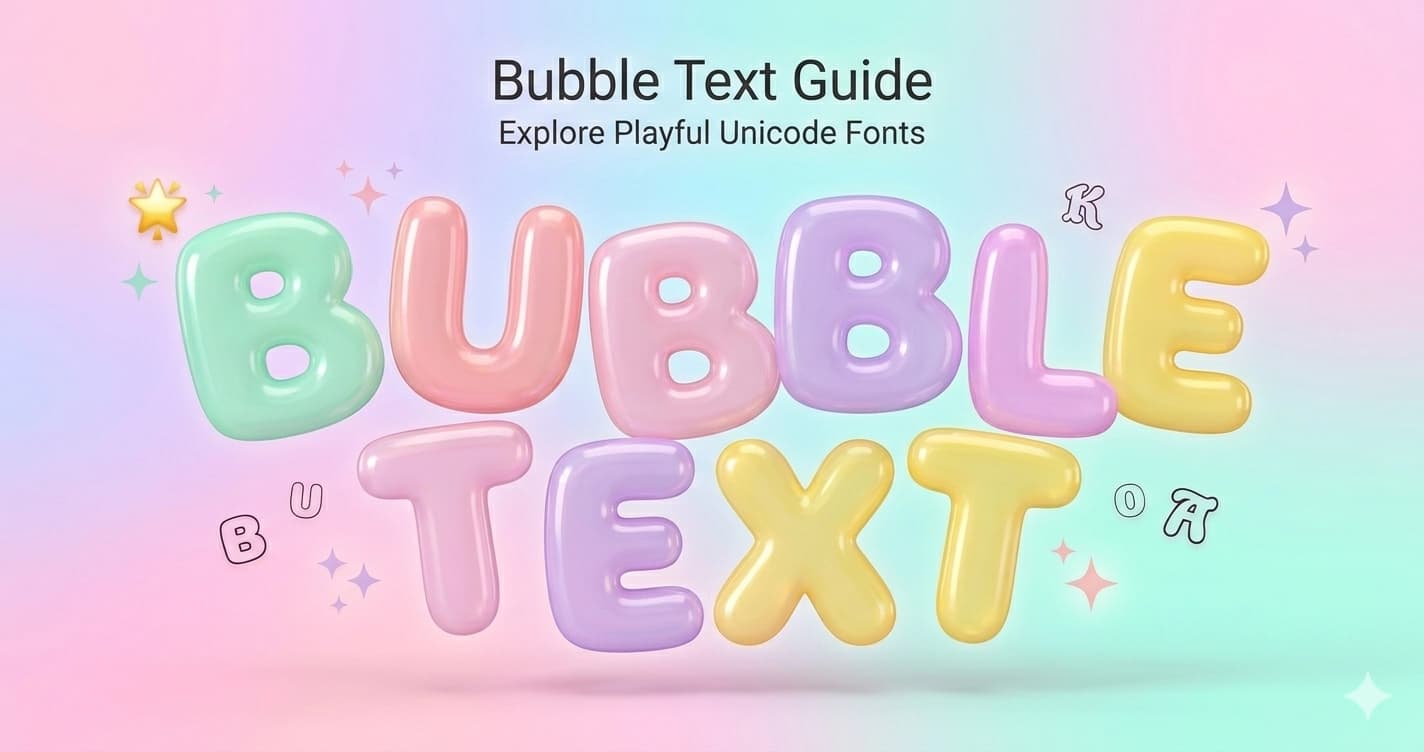
Bubble Text — The Complete Guide to Circled Unicode Letters
Bubble text — letters enclosed in circles — is one of the most immediately recognizable Unicode font styles on social media. Round, soft, and visually distinct, it stands out in any feed or bio in a way that few other text styles can match.
But there's more to bubble text than the aesthetic appeal. The Unicode behind it has a specific technical origin, the two variants behave differently in different contexts, and the platforms handle them in ways worth understanding before you use them.
This is the complete guide.
What Bubble Text Is
Bubble text uses Unicode characters where each letter is individually enclosed in a circular form. There are two primary variants:
Outline Bubble — ⓑⓤⓑⓑⓛⓔ — Each letter sits inside a circular outline. Light, airy, and readable against most backgrounds.
Filled Bubble — 🅑🅤🅑🅑🅛🅔 — Each letter appears white (or light) on a solid dark circle. High contrast, bold, and graphic.
Each character in bubble text is a distinct Unicode character — not a font applied to regular letters. The letter ⓐ is U+24D0, a single character that will always render as a circled lowercase 'a' regardless of what font the viewing system uses to display it.
The Unicode Origin of Bubble Text
Outline Bubble: Enclosed Alphanumerics
Outline bubble letters come from the Enclosed Alphanumerics block (U+2460–U+24FF), specifically:
• Circled Latin Capital Letters: Ⓐ Ⓑ Ⓒ Ⓓ Ⓔ Ⓕ Ⓖ Ⓗ Ⓘ Ⓙ Ⓚ Ⓛ Ⓜ Ⓝ Ⓞ Ⓟ Ⓠ Ⓡ Ⓢ Ⓣ Ⓤ Ⓥ Ⓦ Ⓧ Ⓨ Ⓩ (U+24B6–U+24CF)
• Circled Latin Small Letters: ⓐ ⓑ ⓒ ⓓ ⓔ ⓕ ⓖ ⓗ ⓘ ⓙ ⓚ ⓛ ⓜ ⓝ ⓞ ⓟ ⓠ ⓡ ⓢ ⓣ ⓤ ⓥ ⓦ ⓧ ⓨ ⓩ (U+24D0–U+24E9)
• Circled Digits: ① ② ③ ④ ⑤ ⑥ ⑦ ⑧ ⑨ ⑩ ... (U+2460–U+2469, plus extended ranges for 11–20)
The Enclosed Alphanumerics block was added to Unicode for practical document uses: numbered lists in CJK documents, reference indicators, step numbers in technical documentation. The circled letters were included for similar annotation purposes — marking categories, labels, or references in technical and administrative text.
Their adoption as a decorative "font" style was entirely unintended. The rounded shape, once isolated from the document context, reads as playful and soft — the exact opposite of their dry bureaucratic origin.
Filled Bubble: Enclosed Alphanumeric Supplement
Filled bubble letters come from the Enclosed Alphanumeric Supplement block (U+1F100–U+1F1FF):
• Negative Circled Latin Capital Letters: 🅐 🅑 🅒 🅓 🅔 🅕 🅖 🅗 🅘 🅙 🅚 🅛 🅜 🅝 🅞 🅟 🅠 🅡 🅢 🅣 🅤 🅥 🅦 🅧 🅨 🅩 (U+1F150–U+1F169)
These "negative" (filled) versions were added to Unicode for signage, media labeling, and accessibility applications where high-contrast enclosed letters are needed — rating systems, category markers, warning labels. The filled background ensures legibility against any background color.
Square Bubble: Enclosed Alphanumeric Supplement
The same block also contains square-enclosed variants:
• Negative Squared Latin Capital Letters: 🅰 🅱 🅲 🅳... (U+1F170–U+1F189) — technically the filled square/rounded square style
These are used similarly but with a square or rounded-square container instead of a circle.
Outline vs Filled: A Practical Comparison
FeatureOutline ⓑⓤⓑⓑⓛⓔFilled 🅑🅤🅑🅑🅛🅔
Visual weightLight, airyHeavy, bold
Emotional tonePlayful, soft, kawaiiBold, graphic, announcement
Dark backgroundsPoor — circle outline may disappearExcellent — high contrast
Light backgroundsExcellentGood
Dense textMore readableHeavy for longer phrases
Single wordBoth work wellParticularly impactful
Emoji pairingPairs naturally with pastel emojiPairs with bold or dark emoji
Platform recommendationInstagram, TikTok biosDiscord announcements, alerts
The key difference is contrast behavior. Outline bubble relies on the circle outline for its shape — on dark backgrounds (Discord's default dark theme, dark Instagram highlights), the outline may render faintly. Filled bubble is visible on any background because the dark circle provides its own contrast.
For Discord users primarily on dark mode, filled bubble is the safer choice. For Instagram (light-mode-default), outline bubble is generally cleaner.
How Bubble Text Characters Count
A question that matters for character-limited fields: does each bubble letter count as one character?
Yes — each bubble character counts as exactly one character against platform character limits. ⓑ is one character. 🅑 is one character. This is the same as regular Latin letters.
However, bubble characters are visually wider than standard characters. A 10-character bubble text phrase takes more horizontal space than 10 regular characters. On mobile screens (where most social media is consumed), this can cause text to wrap or appear compressed in narrow profile fields.
Bubble text users are, consciously or not, invoking this visual grammar: each letter feels labeled, individually significant, attention-worthy. The playful reading of bubble text coexists with this more formal underlying logic.